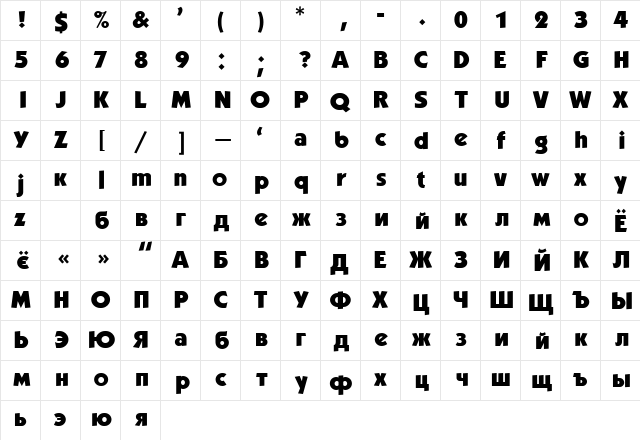
Kabel MediumExttraBold Font Preview
Kabel MediumExttraBold
Design Context for Kabel Typeface
Kabel offers clean, dependable letterforms without strong stylistic allegiance, making it a practical choice for designers who need flexibility. Its bold stroke weight gives it real presence on the page.